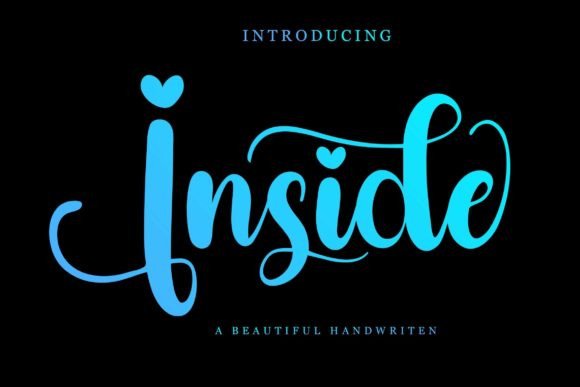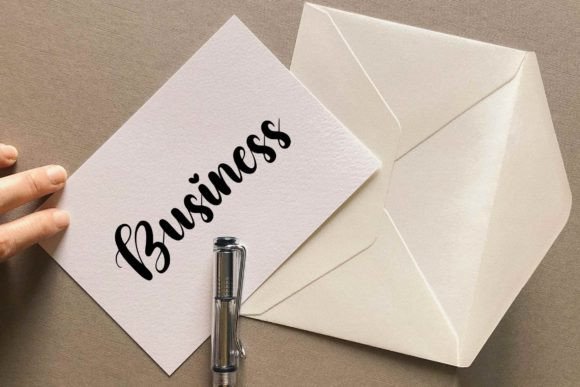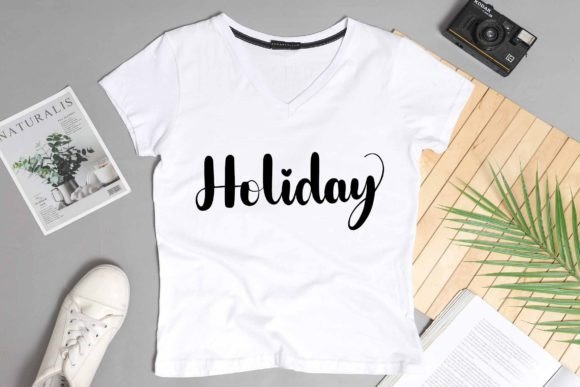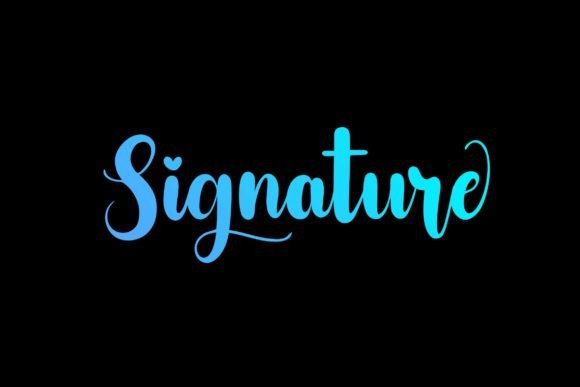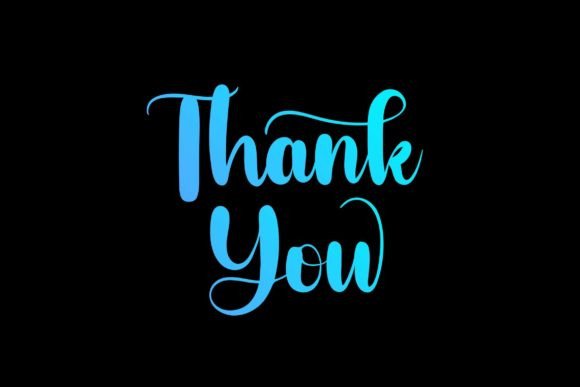
Inside Font
“Inside Font: Beautiful, Romantic, and Unique Handwritten Elegance
Introducing Inside, a beautiful, romantic, and unique handwritten font meticulously crafted to add a touch of elegance to your creative projects. Perfect for logos, branding, quotes, and more, Inside brings a distinctive charm that will breathe life into your designs.
More than just a font, Inside is an artistic tool that seamlessly combines beauty with a romantic and unique aesthetic. Its carefully crafted strokes and unique characters give each letter a distinct flair, making it a perfect choice for projects that demand a blend of style and authenticity.
The versatility of Inside shines through in its ability to enhance the visual appeal of diverse projects. Whether you’re working on digital graphics or tangible items, Inside adapts effortlessly to elevate the aesthetics of your designs.
For logos and branding projects, Inside becomes a signature element, adding a touch of individuality and romantic elegance. The handwritten charm of the font is ideal for creating memorable and impactful brand identities.
In quotes and inspirational designs, Inside brings a sense of romance and uniqueness to the text, making your messages stand out with a touch of heartfelt elegance.
Inside’s versatility extends to various design applications, making it a valuable addition to your fonts library. Its PUA coding ensures easy access to all the glyphs and strokes, providing flexibility and convenience in your design process.
In conclusion, Inside is more than just a font; it’s a design companion that brings beautiful, romantic, and unique handwritten elegance to your creative toolkit. Let Inside be the brushstroke that enhances the beauty of your projects. Embrace the versatility and distinctive charm of Inside, and watch as it transforms your ideas into visually enchanting experiences.”